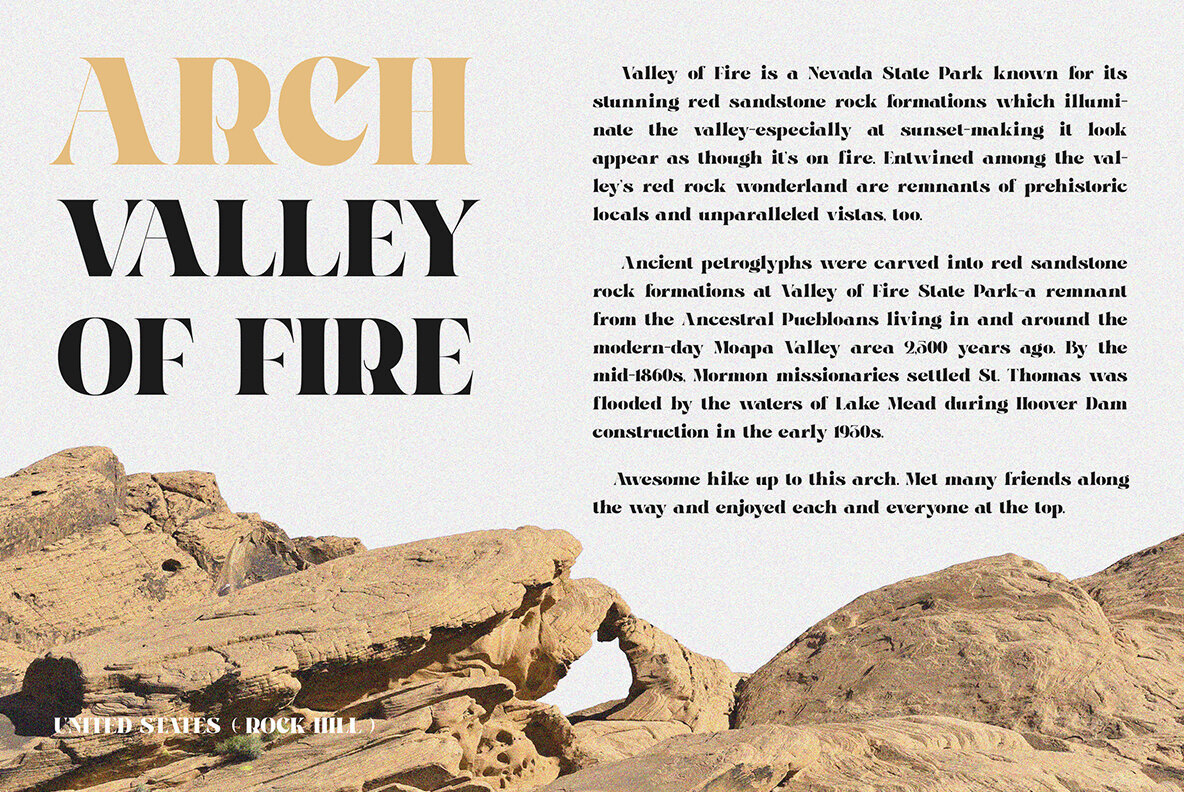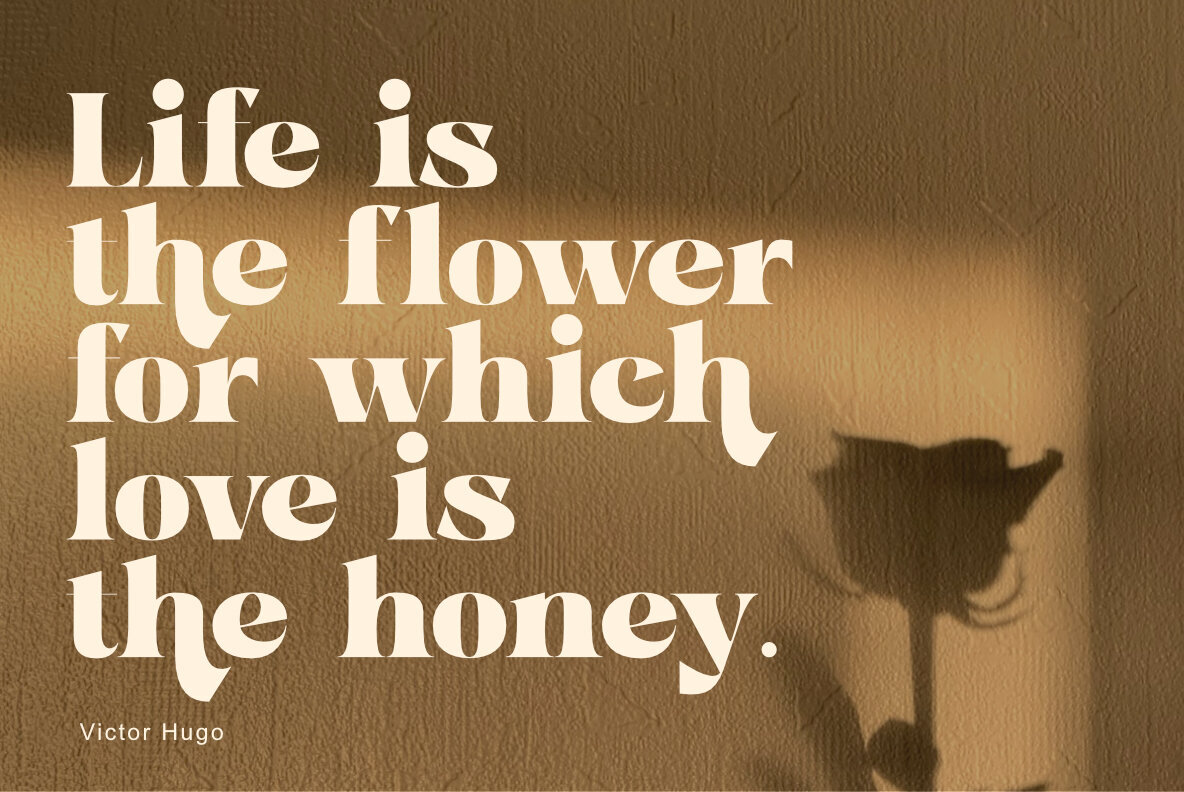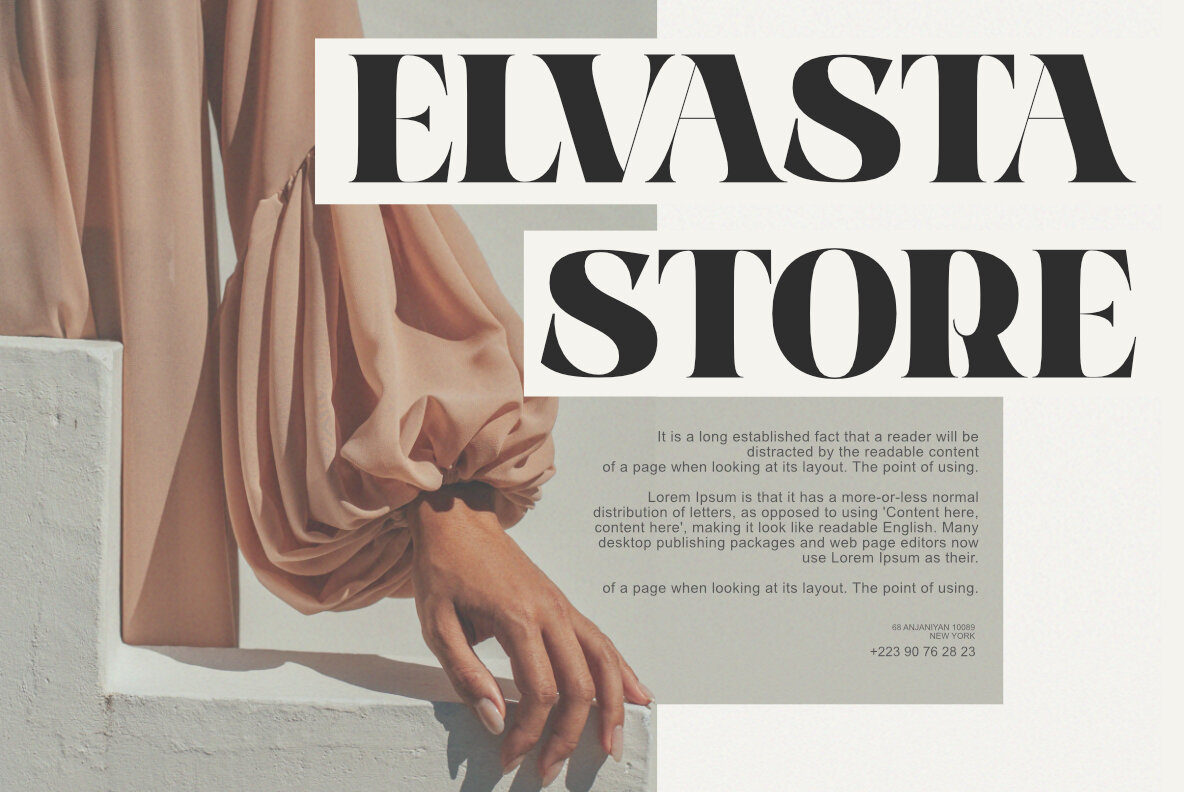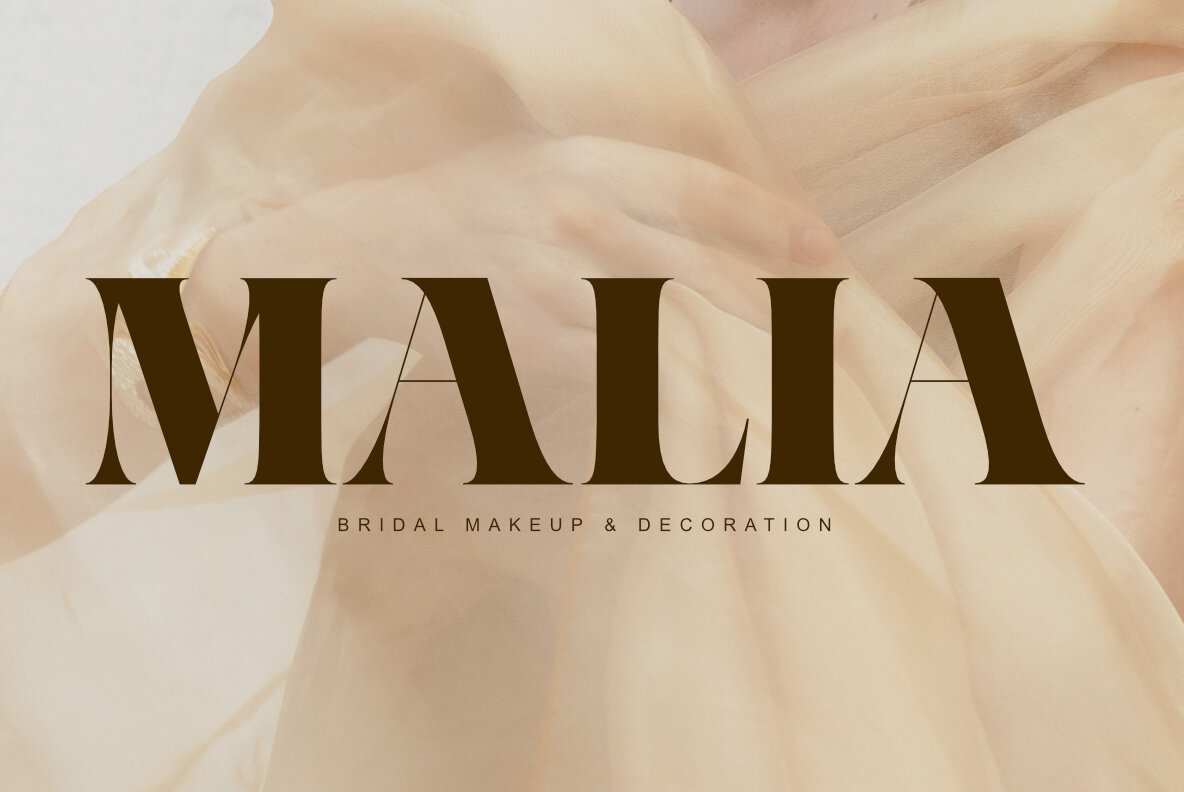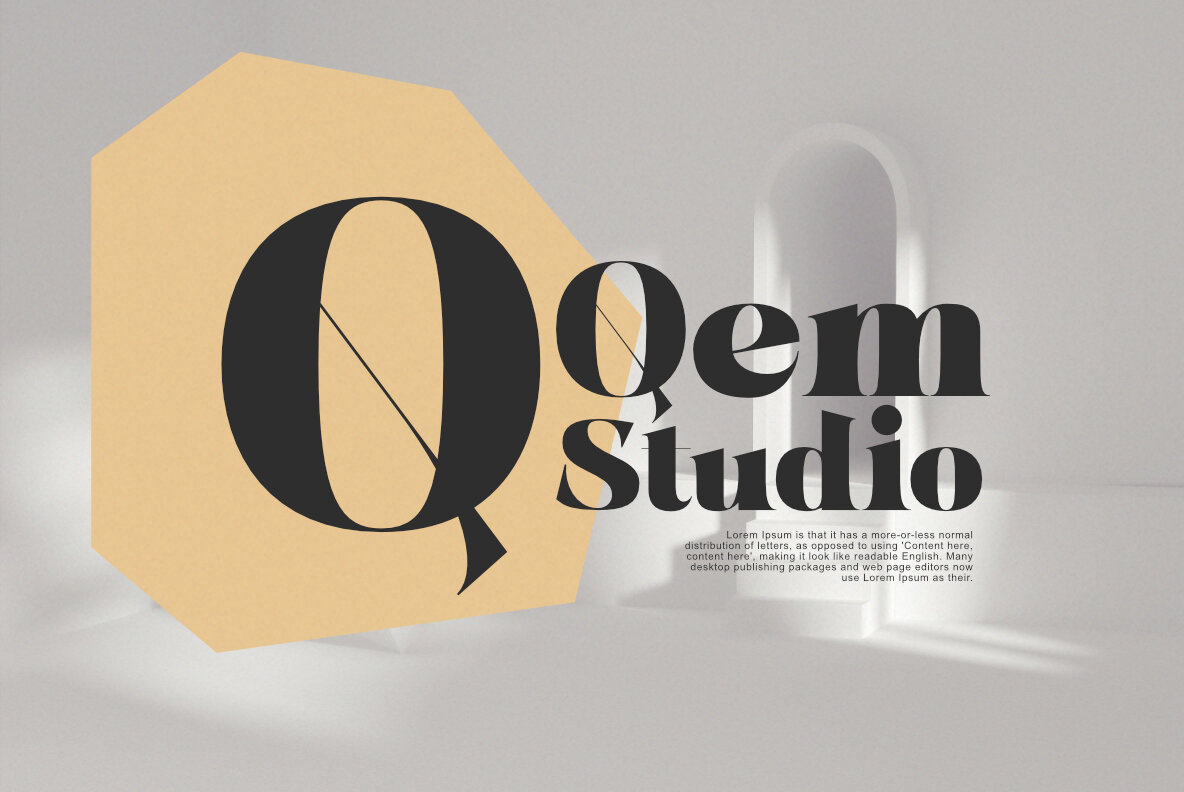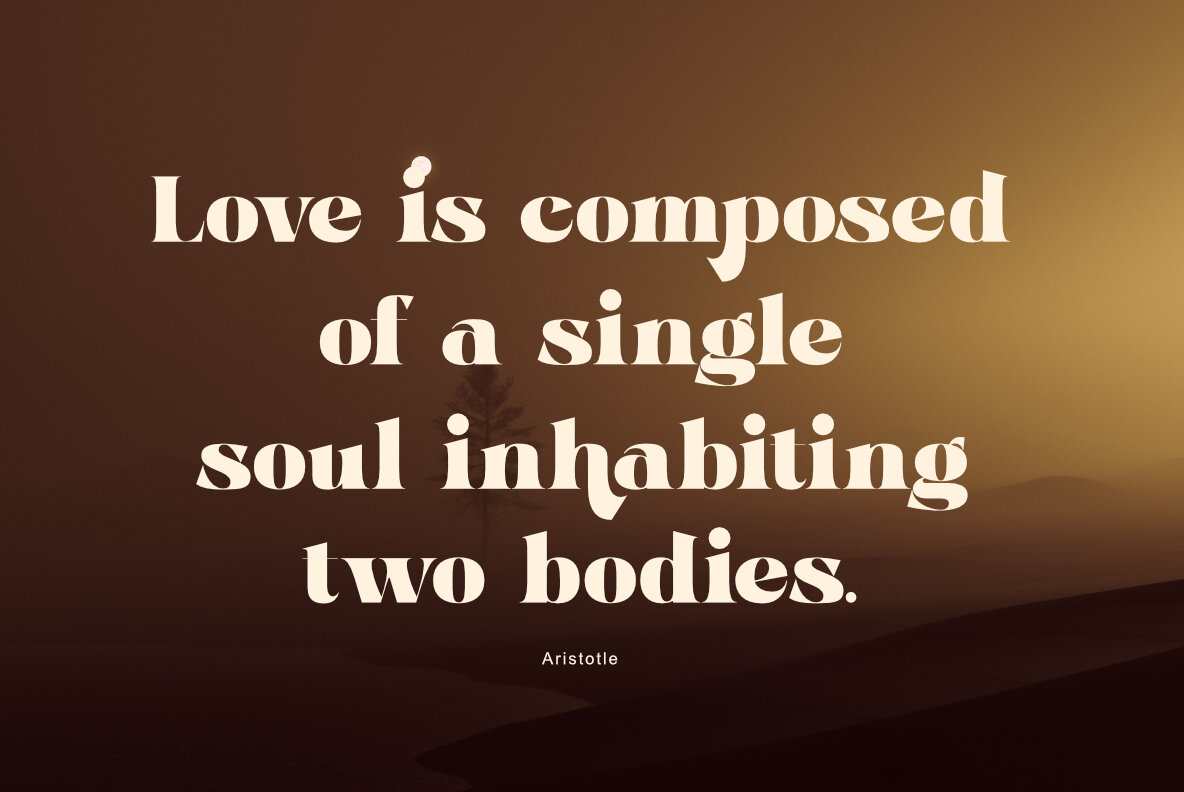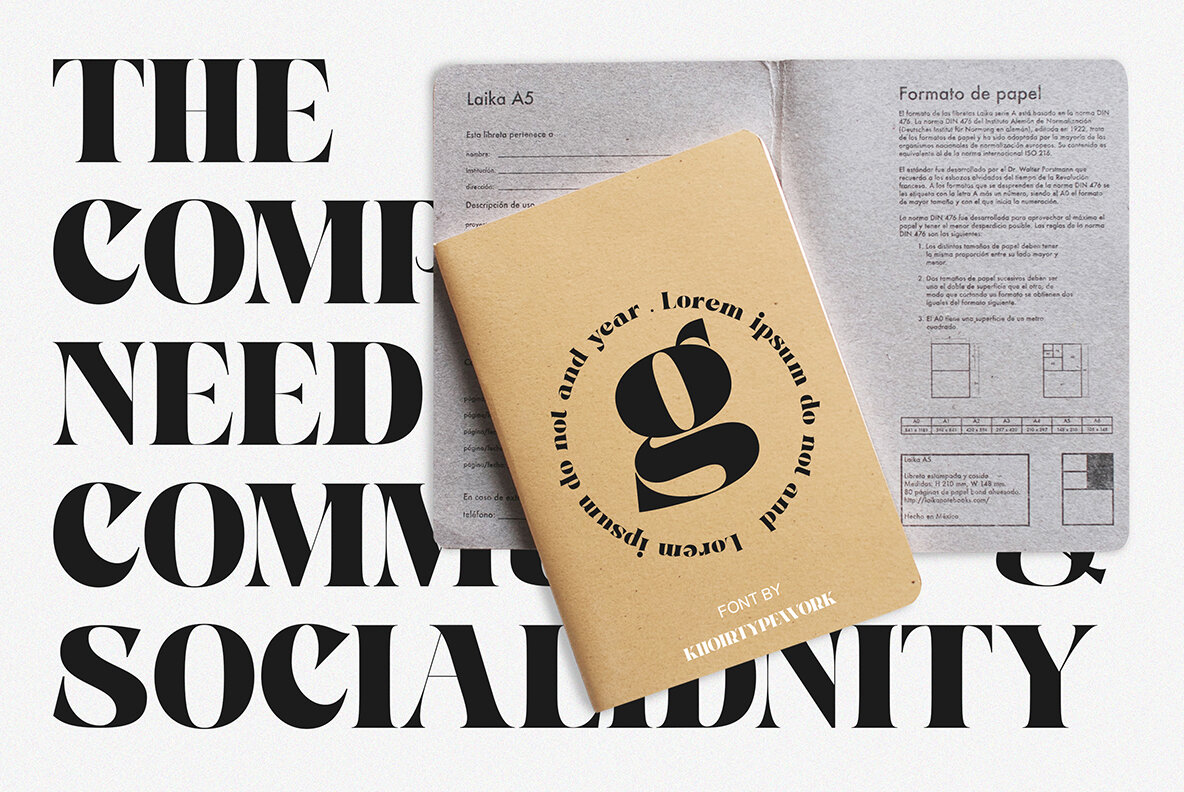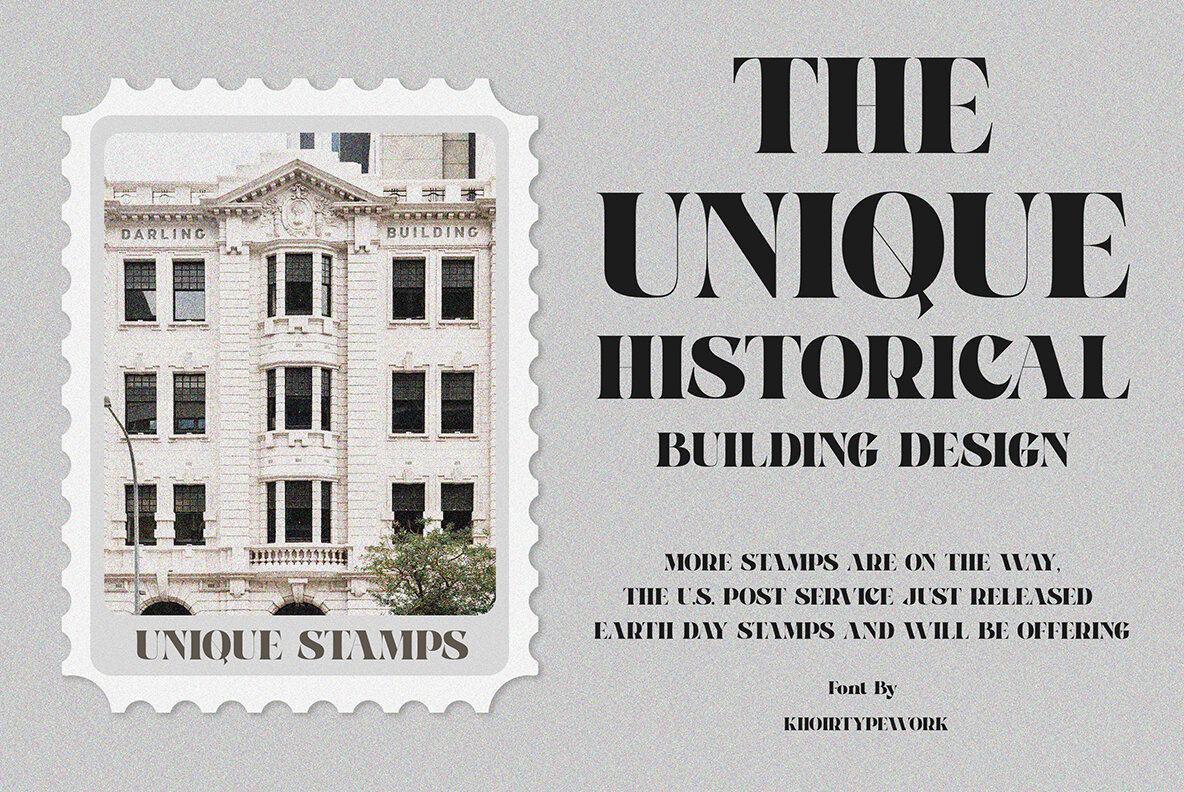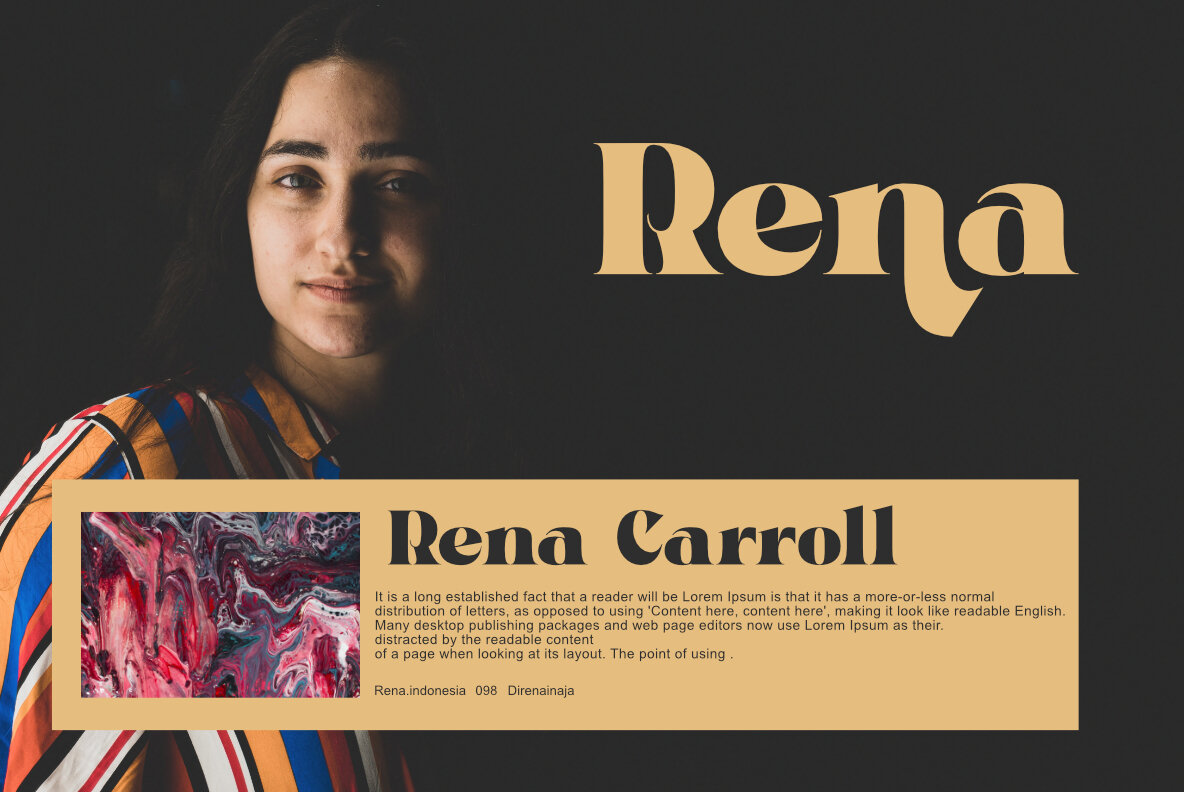
Rigold Font
Rigold Regular
Rigold bold serif is simple but has an elegant feel and character. there are several font alternatives that support you to be more creative in exploring your work, so what are you waiting for!